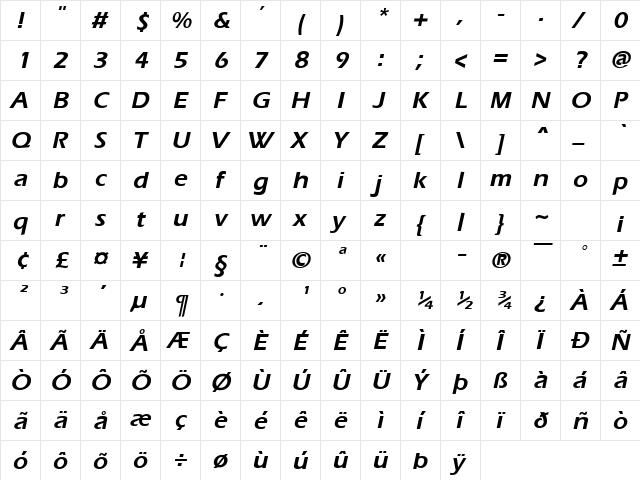
GE Ergonomic Bold Italic
Design Context for GE Ergonomic Typeface
GE Ergonomic takes a measured approach to typography — its balanced proportions and neutral character make it a reliable workhorse for both digital and print work. Its italic angle brings a sense of urgency and motion to the letterforms. The heavy weight commands attention and anchors typographic hierarchies.
Pro Tip: Try GE Ergonomic for annotation and caption copy alongside an upright companion — the contrast in angle creates a dynamic but ordered typographic system.